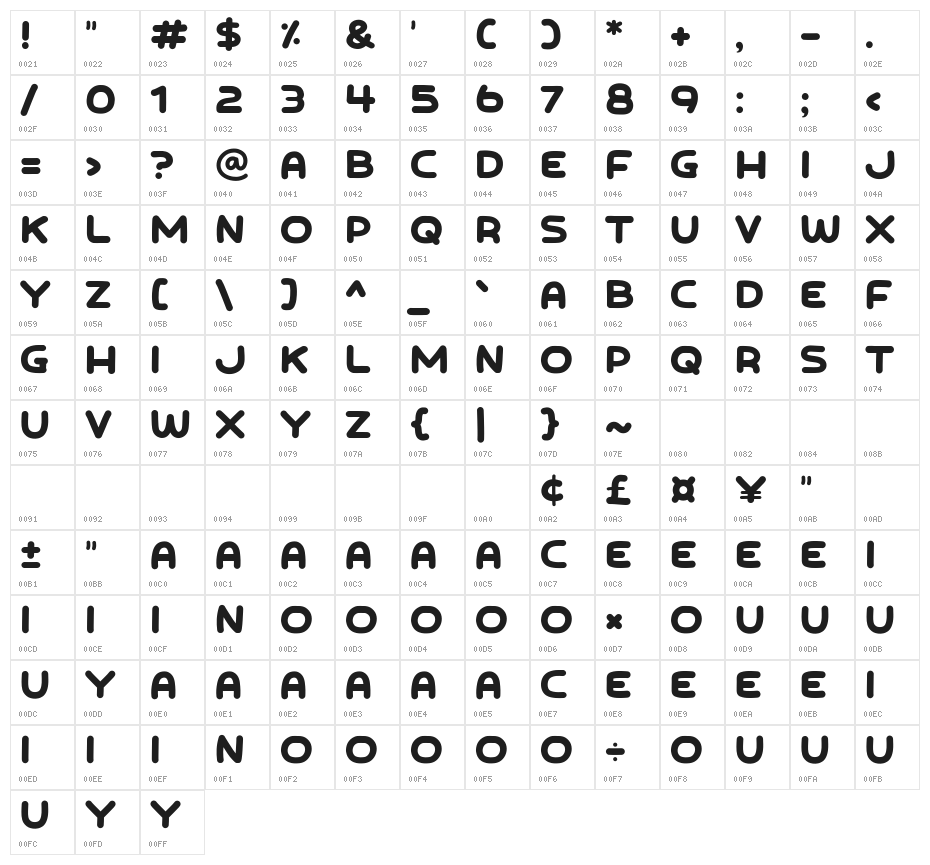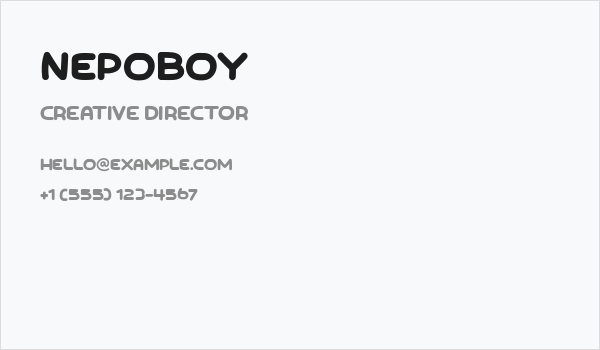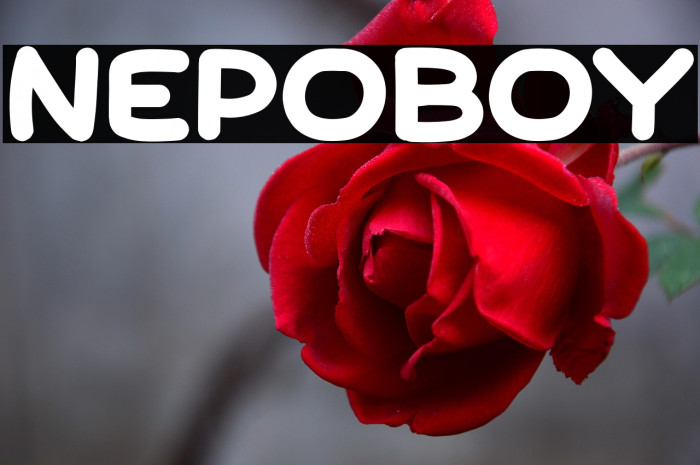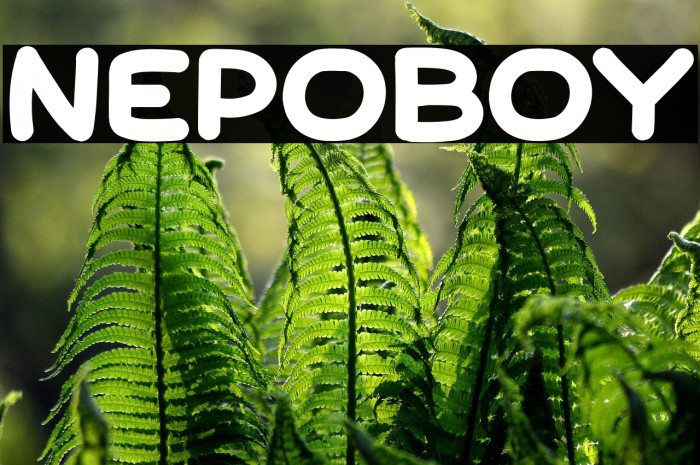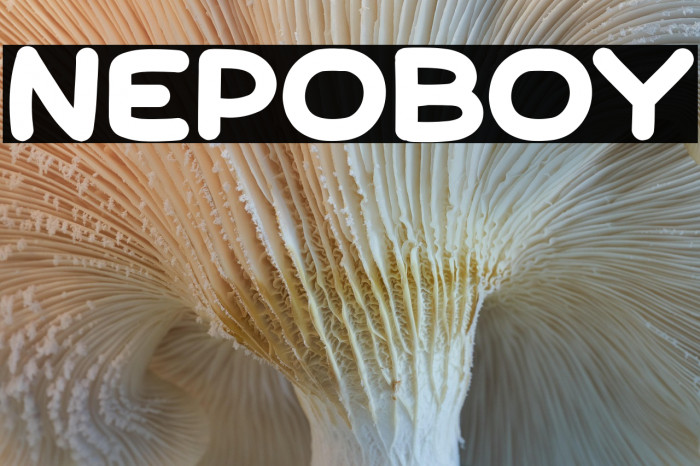
Nepoboy Font
Nepoboy Description
This font features a playful and rounded style, characterized by its thick, uniform strokes and smooth curves. The letters are bold and slightly condensed, giving it a friendly and approachable appearance. The consistent stroke width throughout the characters provides a harmonious and balanced look. The rounded terminals and lack of sharp edges contribute to its soft and inviting feel. This font is versatile and can be used in various contexts where a casual and modern touch is desired. The numerals and special characters maintain the same playful aesthetic, ensuring a cohesive design across all elements.
| Use Case | Headlines, Logos, Casual Text |
| Proposed Projects | Ideal for children's books, playful branding, casual invitations, and modern web design. |